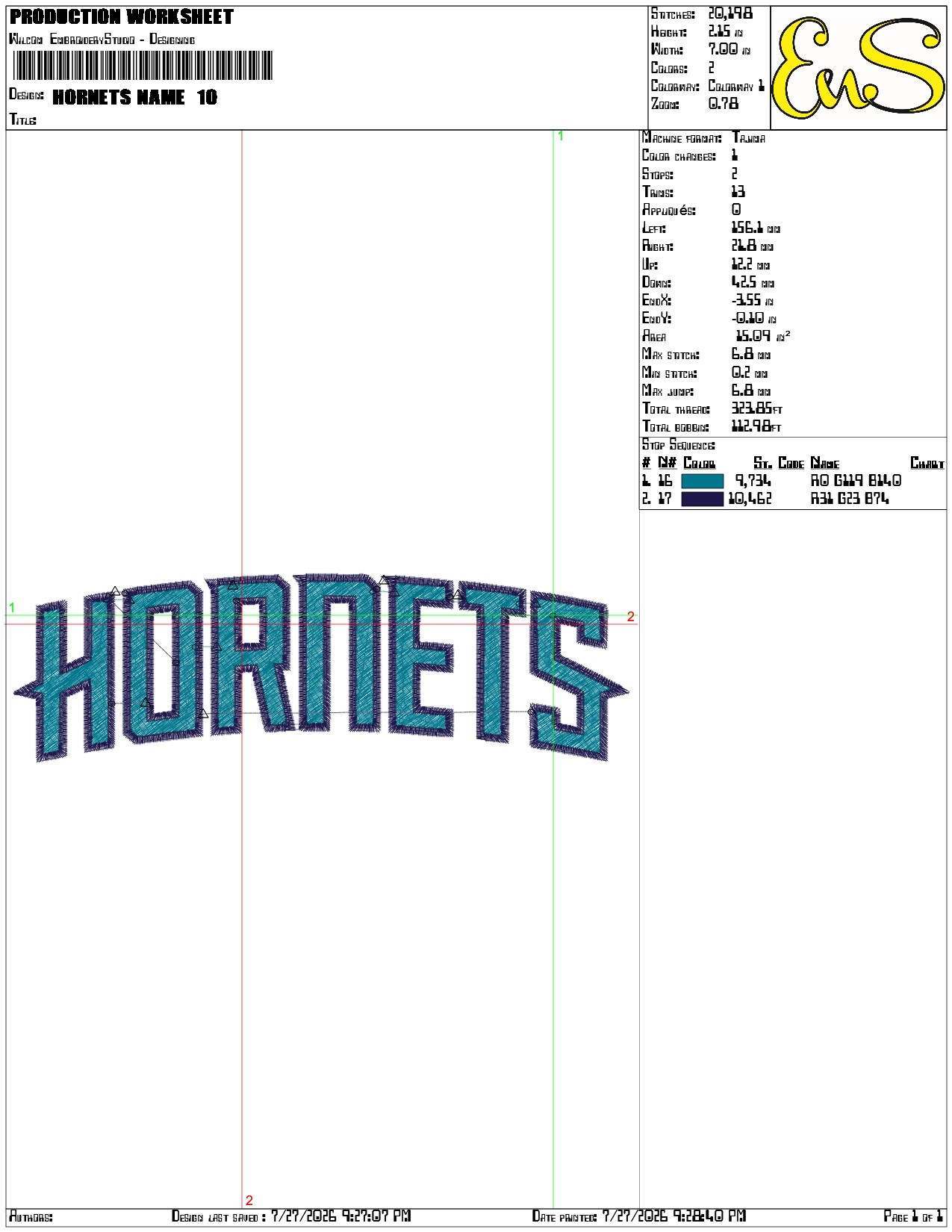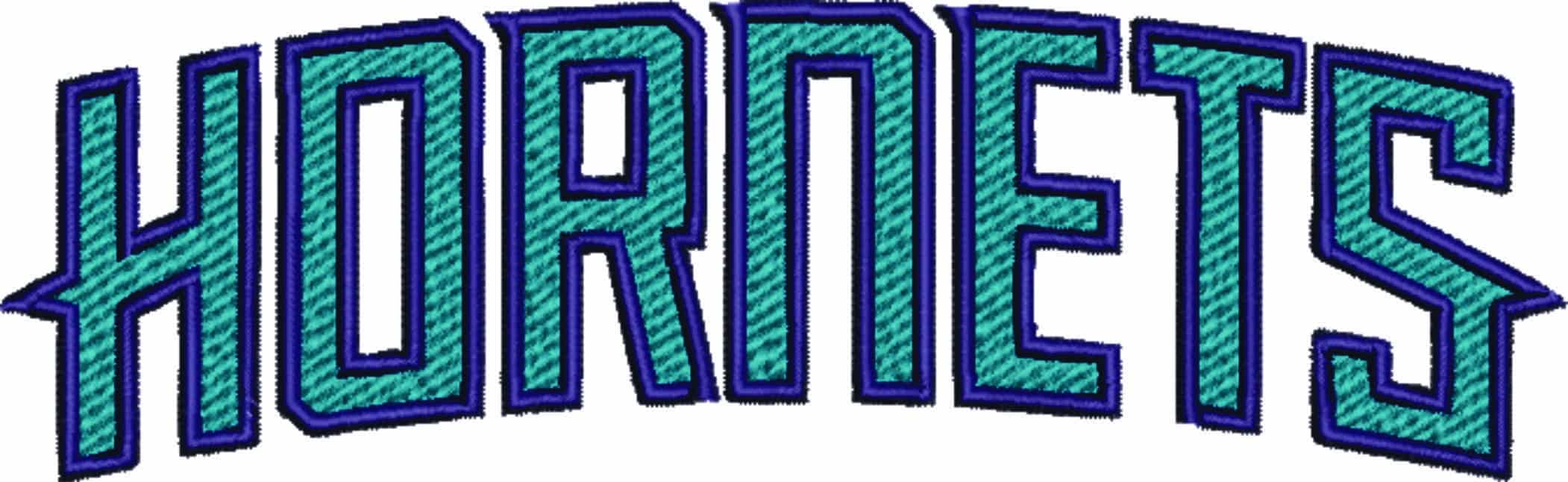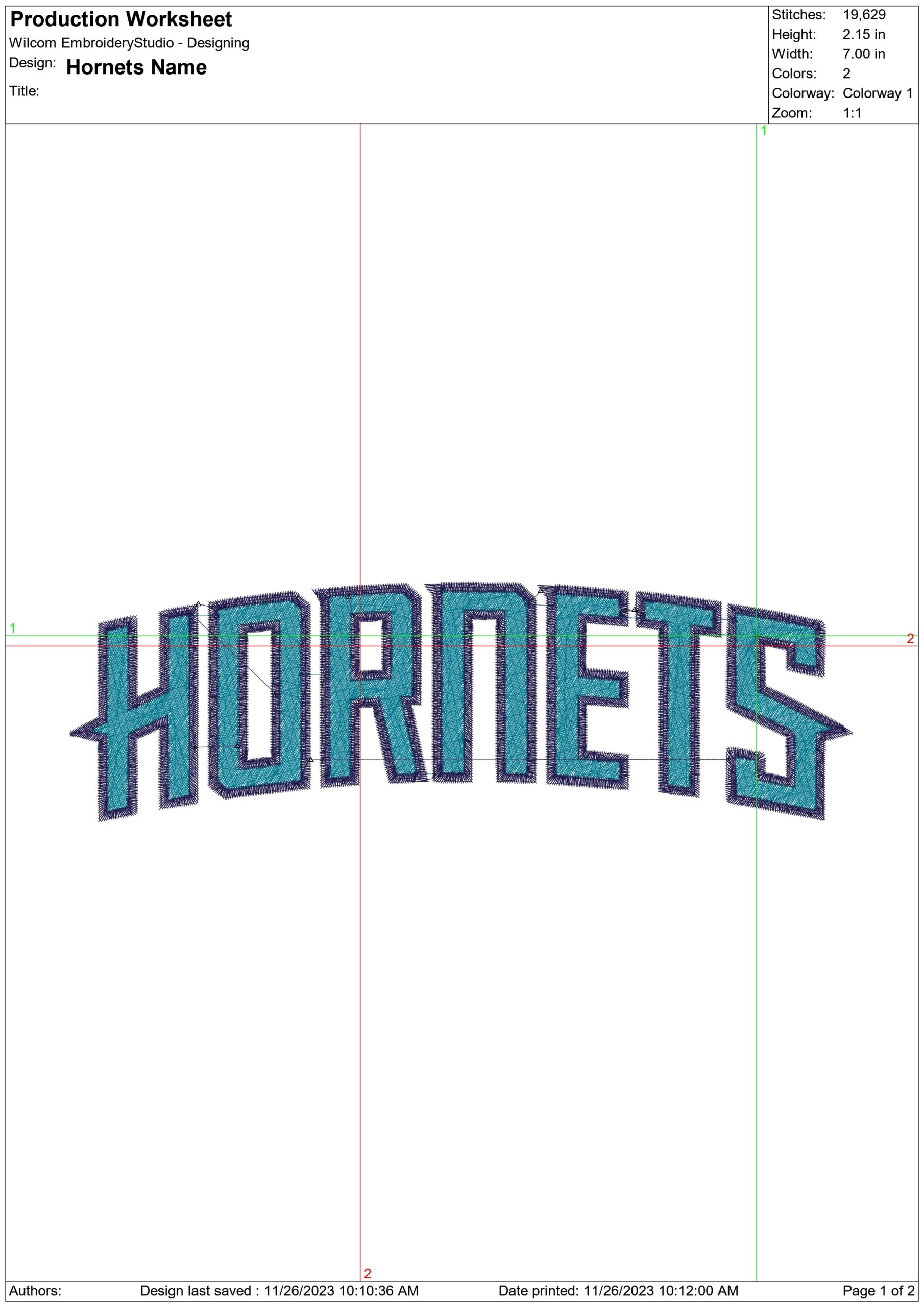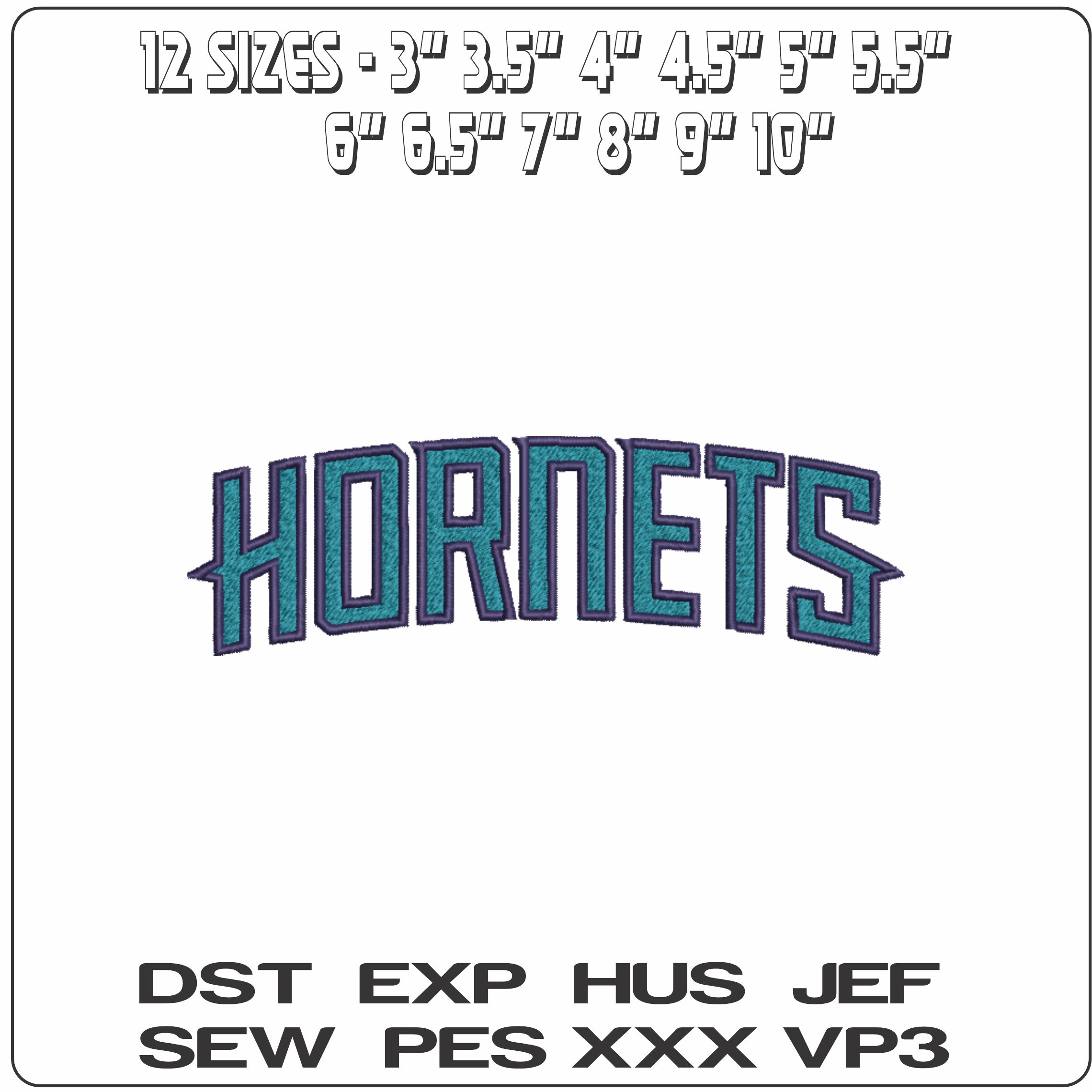
Classic Hornets lettering in teal and purple, stitched in a bold arched wordmark that stands out cleanly on fanwear.
Bring courtside colour to your stitching with this Hornets wordmark design, built around the arched "HORNETS" text in bold block letters. The teal and purple palette gives it that unmistakable Charlotte basketball look without overcomplicating the layout. It suits fans who want a straightforward team-style emblem for jackets, sweatshirts or a weekend game-day tote.
Because the lettering is outlined and heavily stitched, it has a solid, filled appearance that reads clearly from a distance. With just 2 thread colours, it is a strong choice when you want impact on denim, twill, canvas or stable fleece rather than fussy detail. Stitch it across the back of a bomber jacket, on the front of a hoodie, or on a gym bag where the dense coverage helps the wordmark hold its shape.